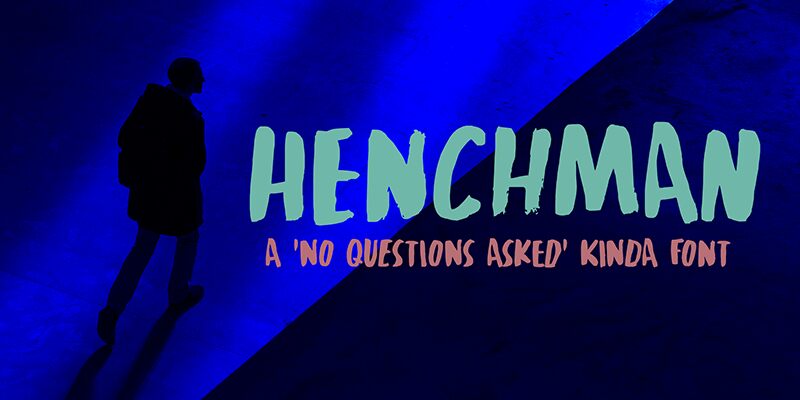
Henchman font is a free brush font designed by Hanoded. It comes with a dynamic, casual, and informal visual look that brings the personal touch of handwriting to the digital world. Its clean but original presence makes it suitable for all kinds of audience targeting dedicated professionals and casual readers. Apart from giving you that humanistic warm look, the font reads well and has a minimalistic and modern look to it.
Enjoy Henchman on digital and printed work including branding and visual identity design, social media posts, product packaging, cover and layout design, book covers, and more. It would look very nice in large sizes in posters and printed advertisements as it does in web projects that are displayed on electronic screens.